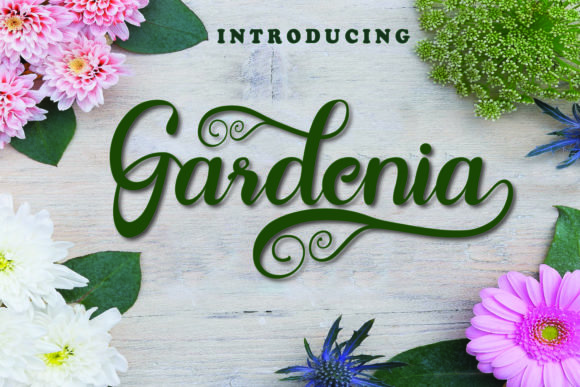
The Perfect Blend of Elegance and Freshness: Gardenia Font
Have you ever found yourself stuck in a design rut, scrolling through font options, searching for that one perfect fit? You know, that moment when everything comes together and your creative vision starts to take shape. For designers, this is the holy grail – and it’s exactly what the Gardenia Font aims to deliver.
This beautiful font combines classic calligraphic influences with a modern twist, making it the perfect choice for a wide range of creative projects. Whether you’re designing a wedding invitation, a business card, or a newsletter, Gardenia Font is sure to bring a touch of sophistication and elegance to your work.
With its versatility and timeless appeal, the Gardenia Font is a valuable asset for any designer looking to elevate their craft. Its ability to seamlessly blend tradition and innovation makes it an ideal choice for designers who want to create truly memorable and impactful designs.
Gardenia Font Key Features
- Unique Characteristics: Gardenia Font features elegant, cursive script with unique flourishes and swashes, making it ideal for formal and wedding invitations, greeting cards, and other special occasions.
Gardenia Font Review
As a designer, I was excited to try out the Gardenia Font. Here’s my honest review of this elegant script font.
- ✨ Elegant and sophisticated feel – perfect for high-end branding or wedding invitations
- ✨ Beautiful connection between letters – creates a smooth and flowing text
- ✨ Wide range of language support – making it a great choice for multilingual designs
- ⚠️ Limited font weight options – only light and regular weights are available
- ⚠️ Not ideal for body text – best suited for headlines and titles
- ⚠️ Can be difficult to read at small font sizes
Gardenia Font is a beautiful and elegant script font that’s perfect for high-end branding and special occasions. While it has some limitations, it’s still a great choice for designers looking to add a touch of sophistication to their designs. With its beautiful connection between letters and wide range of language support, it’s definitely worth considering for your next project.
Getting the Most Out of Gardenia Font
To get the most out of Gardenia Font, consider the following tips:
– Use the font for elegant and sophisticated designs.
– Pair the font with complementary colors to enhance its beauty.
– Experiment with different font sizes and styles to create visual interest.
Gardenia Font is commonly used for:
– Wedding invitations and stationery.
– Luxury branding and packaging.
– Elegant website and brochure designs.
– Formal event invitations and announcements.
Alternative Font Options to Gardenia Font
Lobster Font is a beautiful, cursive script font that is ideal for use in headings and titles. It is perfect for creating a luxurious and elegant look in designs. Lobster Font has a more playful and whimsical feel compared to Gardenia Font, which is more classic and sophisticated.
Comparison: While Gardenia Font has a more subtle and understated look, Lobster Font is more dramatic and attention-grabbing. Lobster Font is ideal for use in designs where you want to create a sense of luxury and sophistication.
Pacifico Font is a beautiful, modern script font that is perfect for use in headings, titles, and body text. It has a relaxed and casual feel that is ideal for use in designs that require a laid-back and friendly tone. Pacifico Font has a more open and airy feel compared to Gardenia Font, which is more dense and formal.